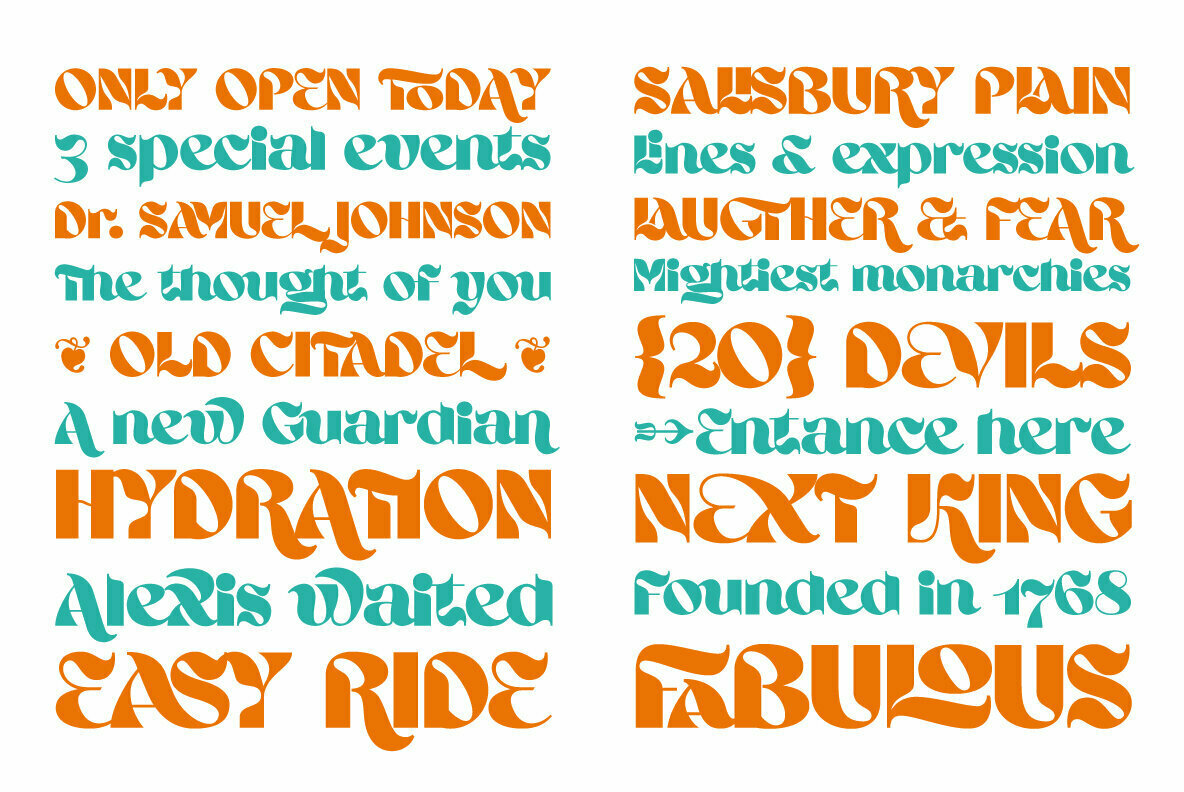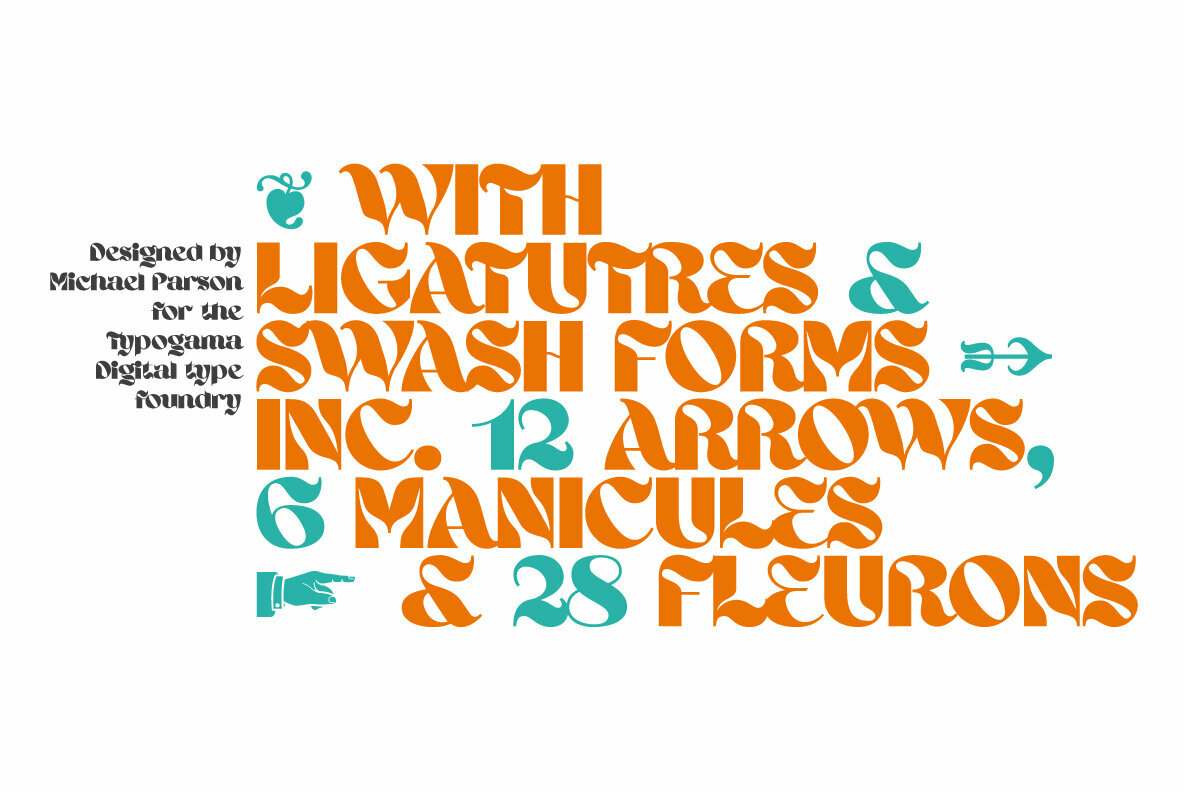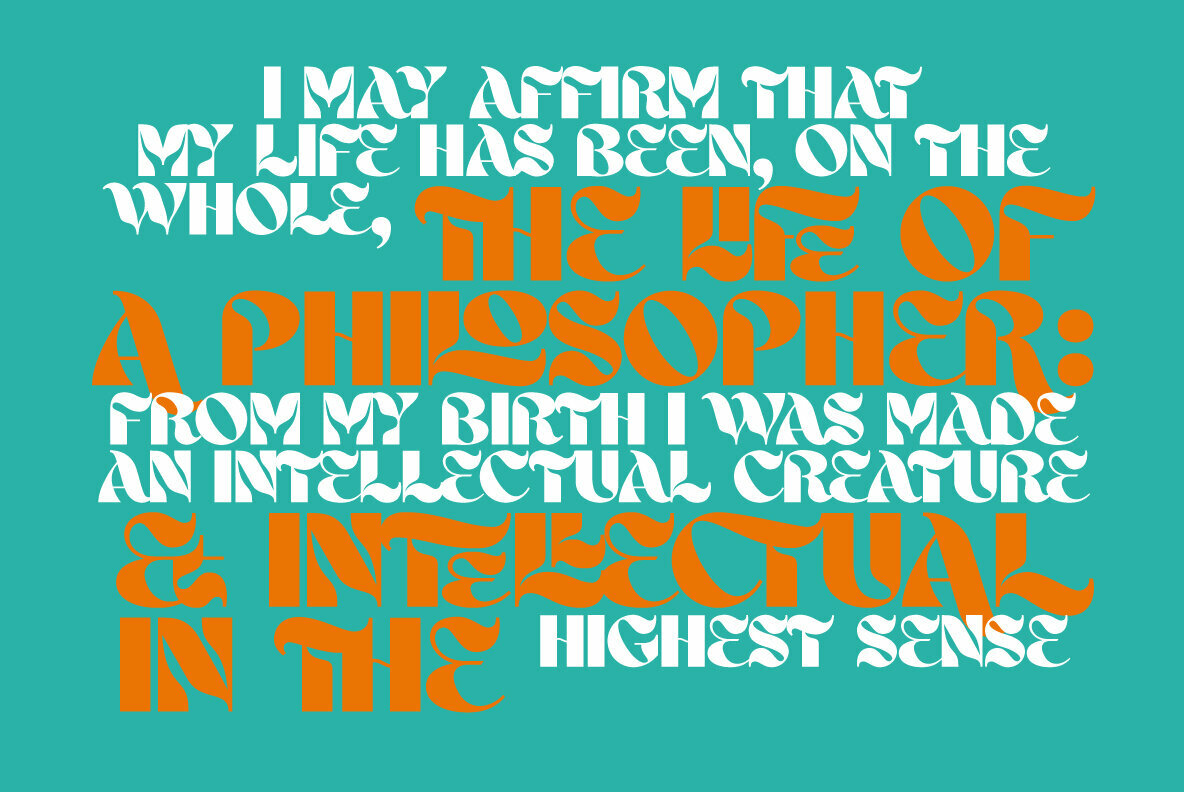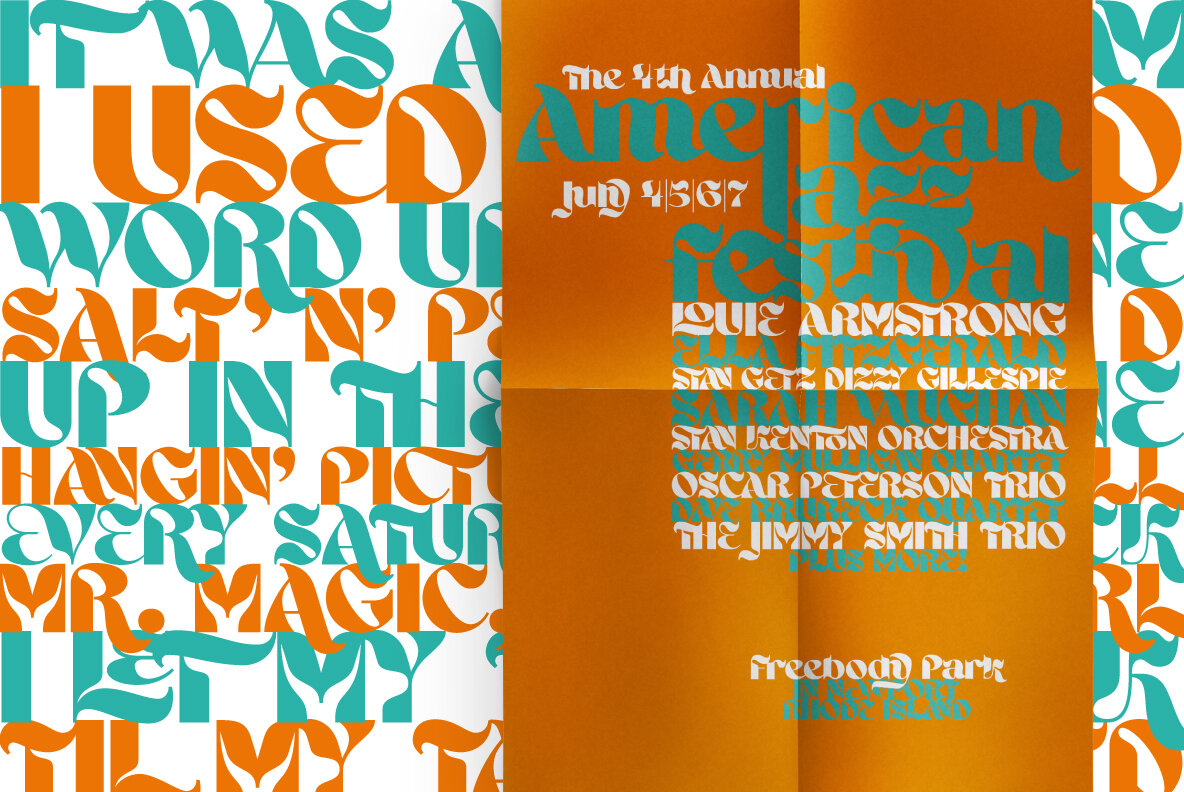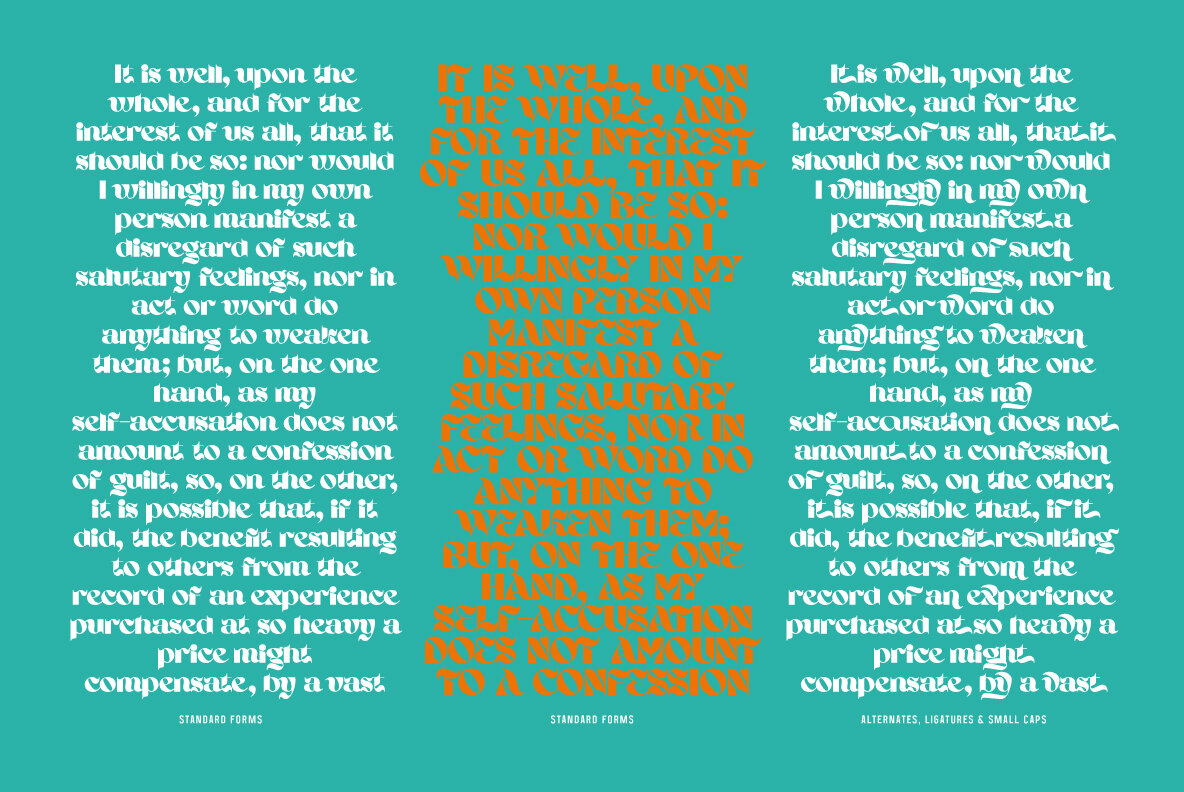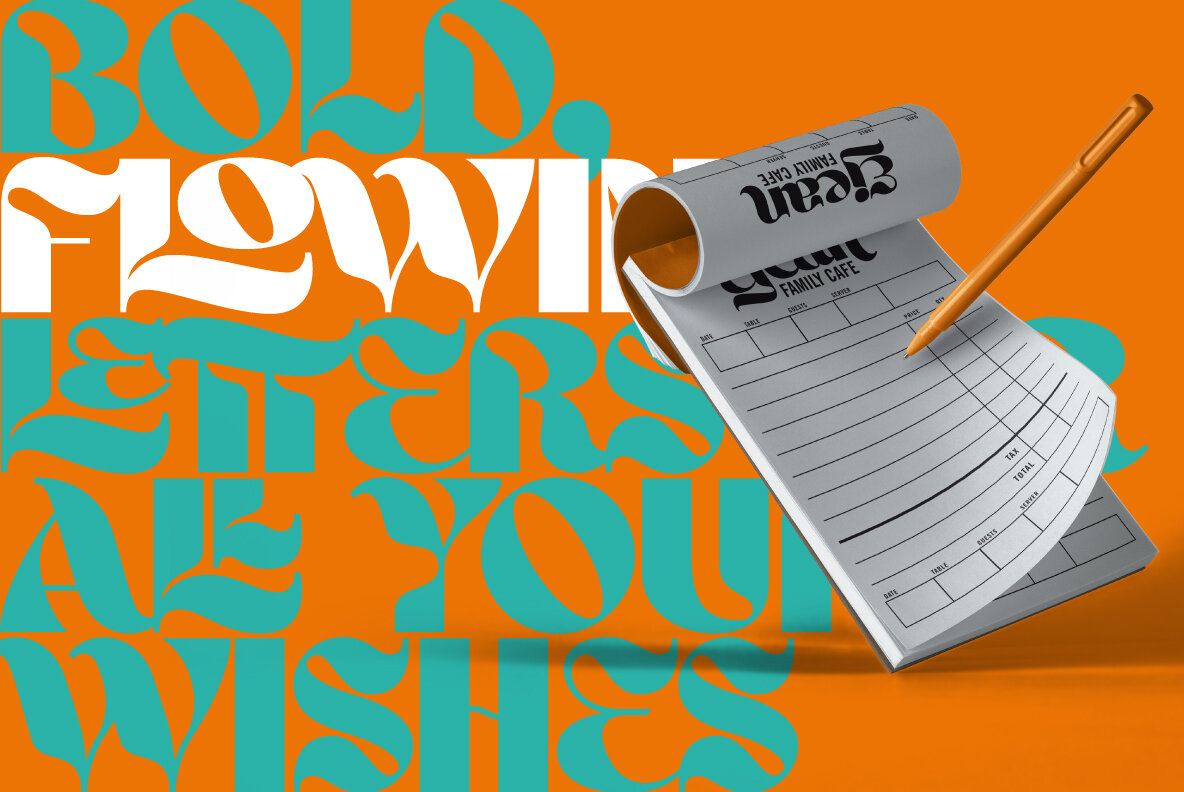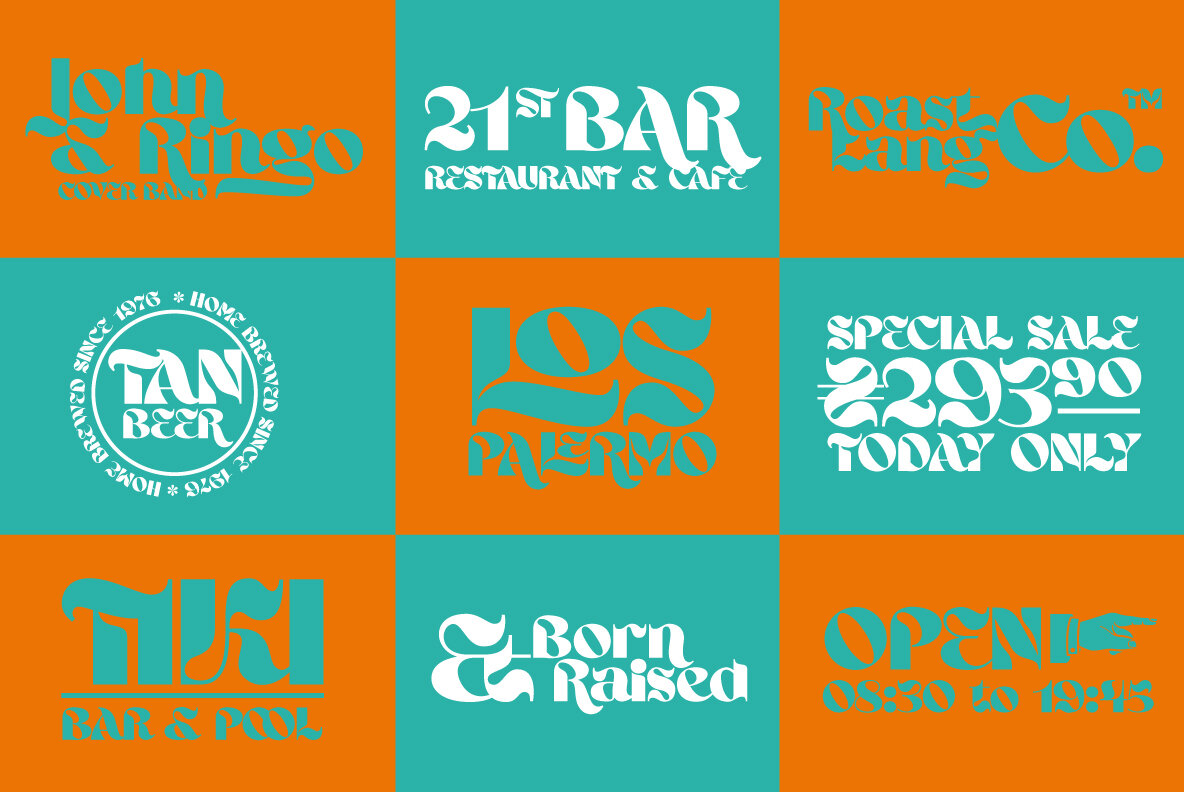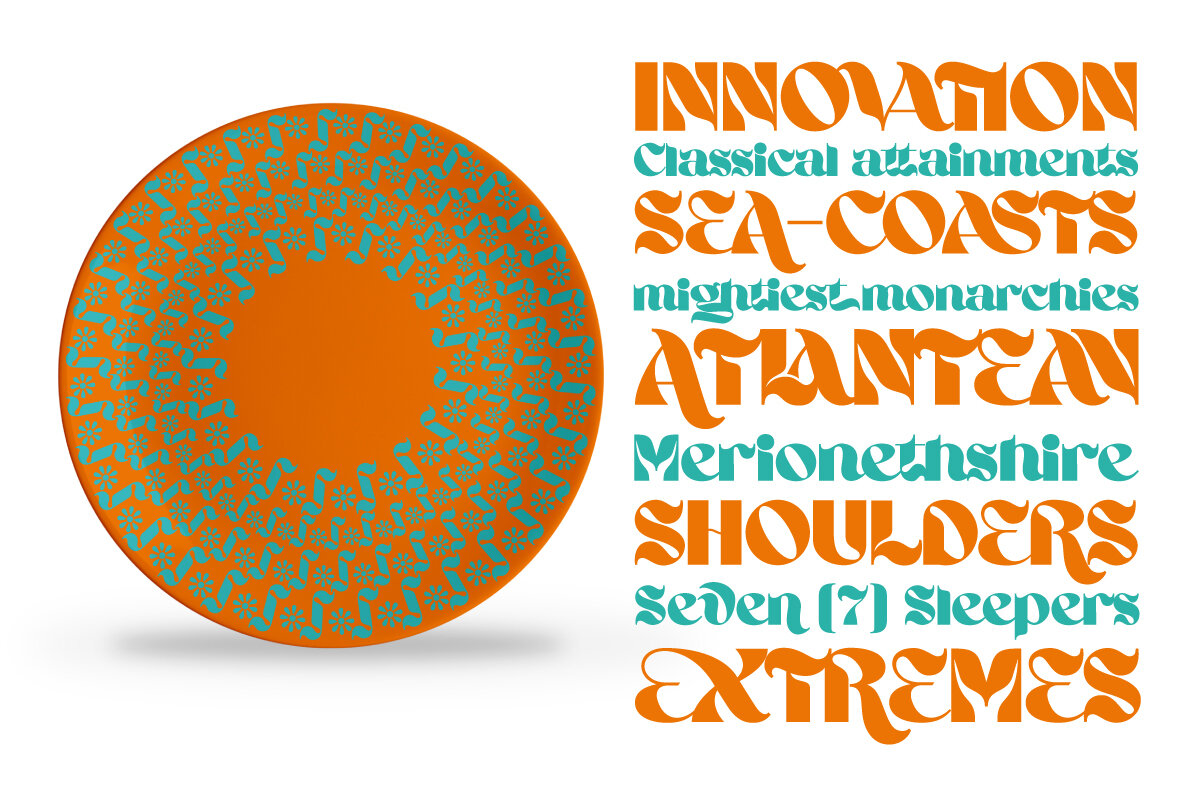
Ahsing Font
Ahsing
Inspired by a wide range of sources and styles, Ahsing is a single weight typeface that aims to explore new design solutions. With a bold form a strong contrast and pronounced diagonal axis, this design hints both at past typeface styles while being unique and original in its appearance.
Thanks a large range of Opentype features and an expanded character set, this single font provides a versatile and distinctive solution for setting titles or any large text that need to catch your viewers attention.
After completing his studies in Switzerland, Michael Parson set up an independant graphic design studio in Geneva in 2002, focused on typography and illustration.Since then, he has worked in a wide range of medias and projects as well as releasing a series of typeface designs with Linotype, T26 and YouWork...